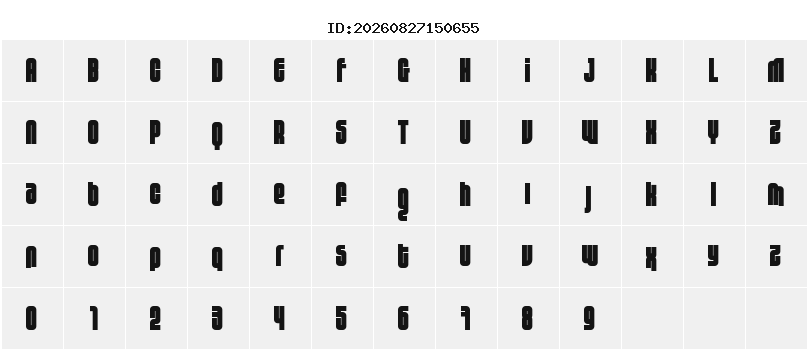
• Font Name: 10.12
• Font Style: fenotype
• Font ID: Macromedia Fontographer 4.1 10.12 magnum 4
• Full Font Name: 10.12 fenotype
• Version: Macromedia Fontographer 4.1 14.10.2002
• PostScript Name: 1012fenotype
• Character Count: 79
About 10.12.ttf
10.12.ttf is a modern, elegant sans-serif font designed for ultimate readability and visual harmony. Perfect for branding, headlines, web design, and print materials.